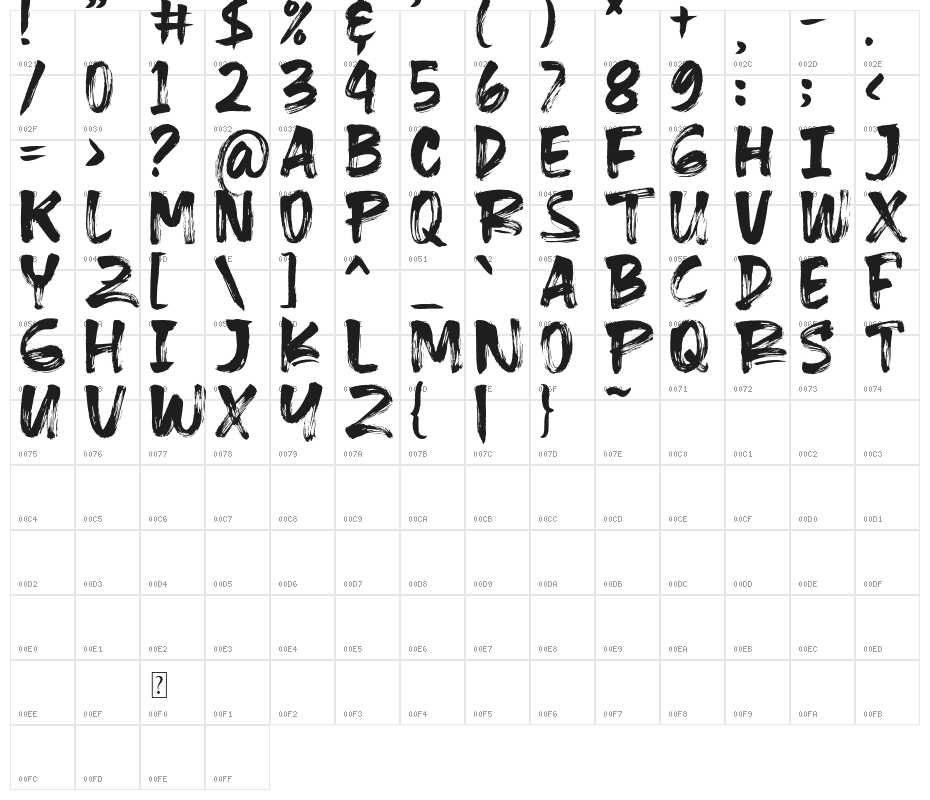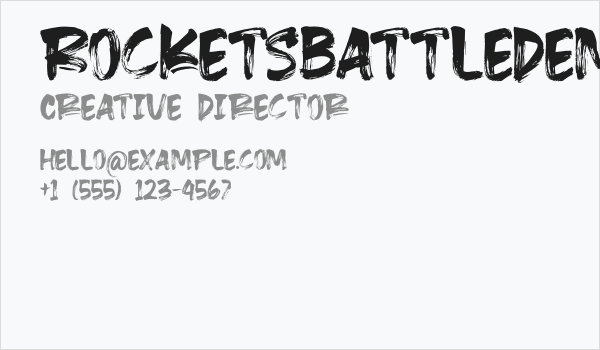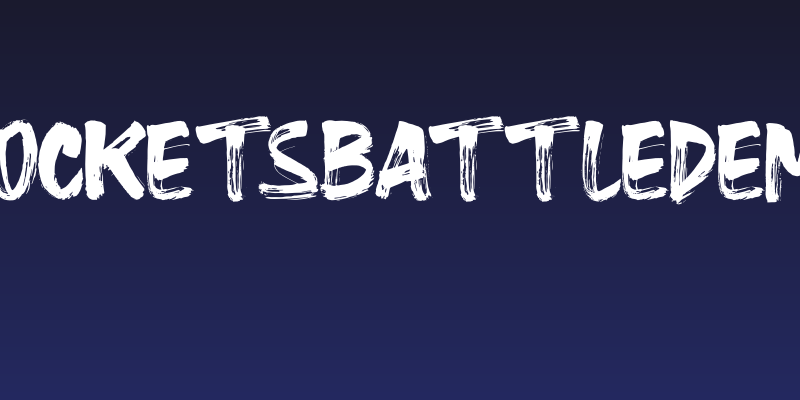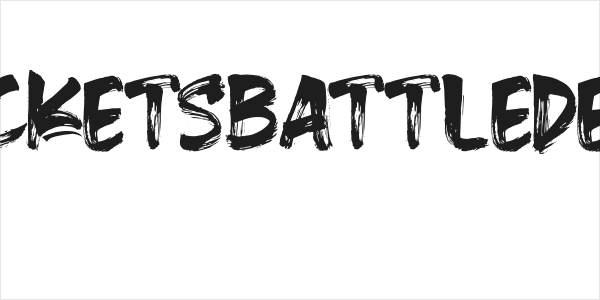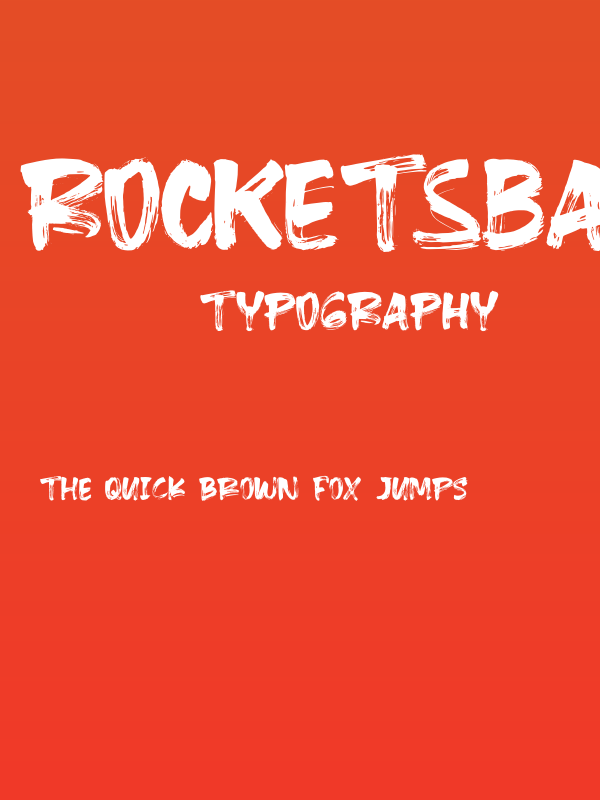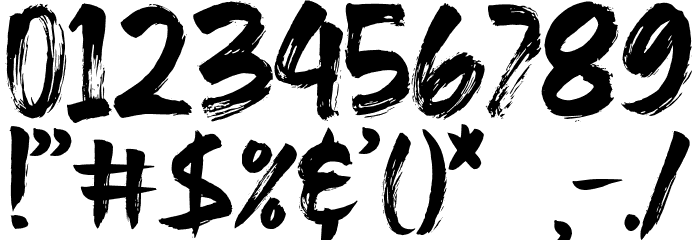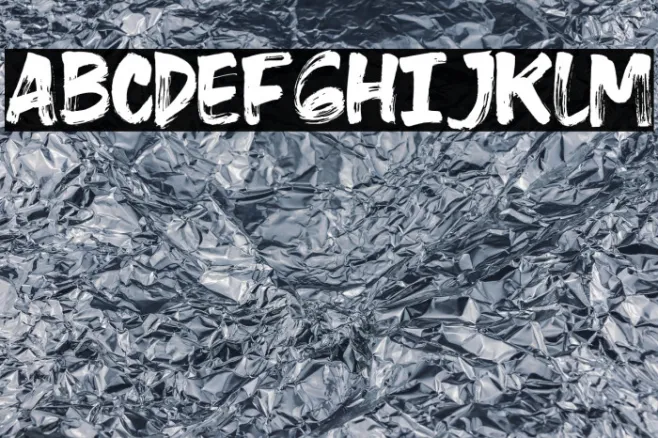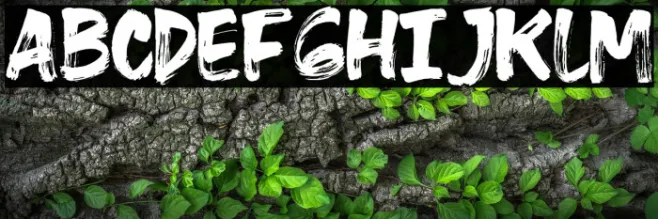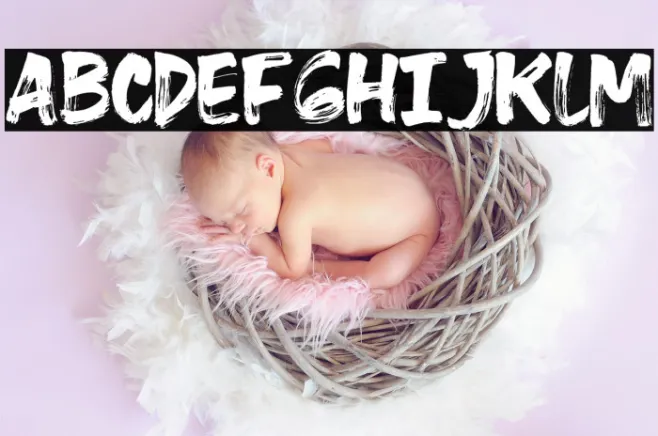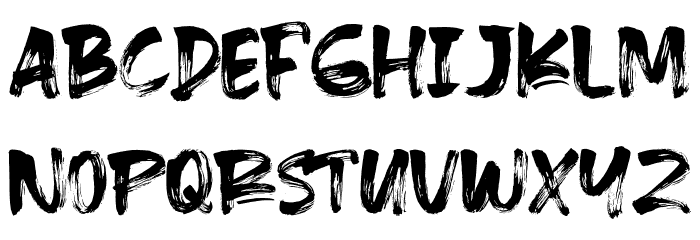
RocketsBattleDemo Font
RocketsBattleDemo Description
This font features a bold and dynamic brushstroke style, giving it a lively and energetic appearance. The characters are crafted with a rough, textured finish that mimics the look of hand-painted lettering. Each letter has a unique flair, with varying stroke widths that create a sense of movement and spontaneity. The uppercase and lowercase letters maintain a consistent style, while the numbers and special characters complement the overall aesthetic. This font is ideal for projects that require a bold, artistic touch, such as posters, album covers, or branding materials.
| Proposed Projects | Ideal for posters, album covers, branding, and artistic projects. |